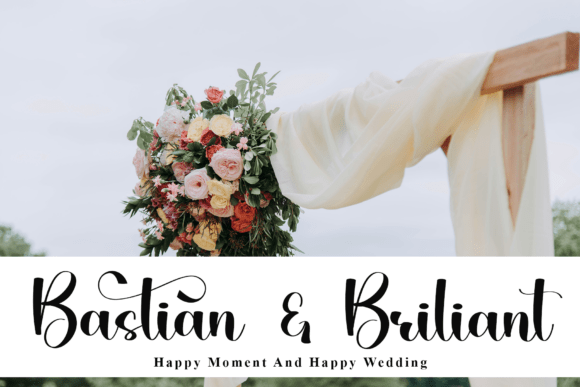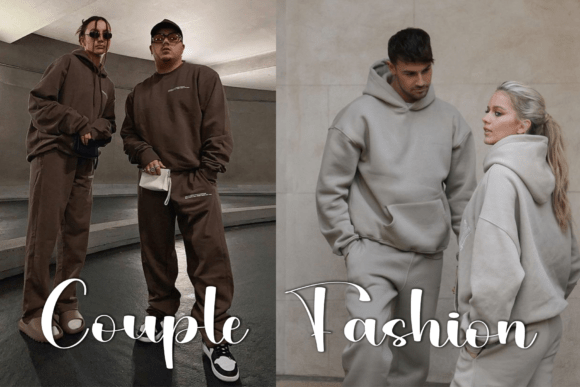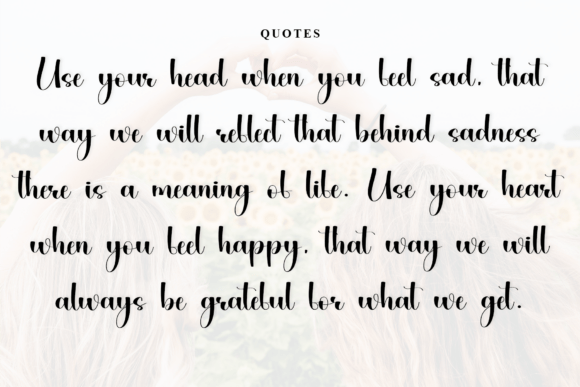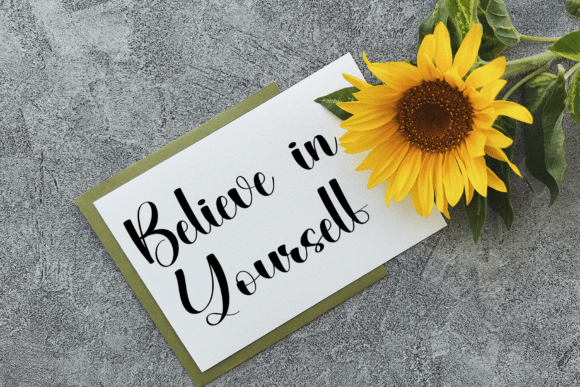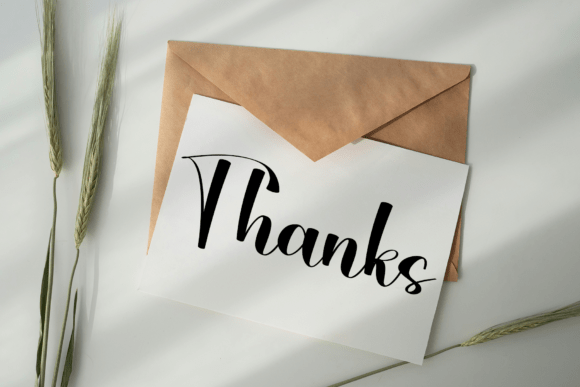
The Perfect Pen Pal for Your Designs: Bestie Font
Have you ever been stuck in a creative rut, scrolling through your favorite design inspiration boards, and suddenly, you stumble upon a font that makes you feel like you’ve found a long-lost friend? That’s exactly what happened to me when I discovered the Bestie Font. Its charming handwritten style instantly captured my attention, and I knew I had to learn more.
Bestie Font is a delightful, laid-back font that’s perfect for designers looking to add a touch of warmth and personality to their projects. Whether you’re working on a branding campaign, crafting invitations, or creating social media graphics, this font is sure to bring a smile to your face and your audience’s faces. Its fluid strokes and organic lines make it an invaluable asset for designers seeking to create authentic and engaging designs.
Bestie Font Key Features
- Unique Characteristics: The font features a playful, cursive script with rounded edges, making it ideal for creating friendly and approachable designs.
- Kerning and Ligatures: The font includes advanced kerning and ligature pairs to ensure smooth text rendering and professional typography.
Designer Review: Bestie Font
First impressions are everything, and Bestie Font certainly delivers ✨. The moment I laid eyes on it, I knew I had to dive in and explore its features. The font is playful, yet sophisticated, making it perfect for a wide range of applications – from social media to branding.
The Bestie Font family is quite extensive, with a total of 12 weights to choose from ✨. This allows designers to experiment with different styles and create unique, eye-catching typography. I also appreciate the attention to detail in the font’s design, with subtle nuances that add depth and character.
- ⚠️ Limited language support: Although the font is highly legible, it’s only optimized for the Latin alphabet, which may limit its use in multilingual projects.
- ⚠️ Not ideal for small text: The Bestie Font’s beauty lies in its bold, statement-making qualities. However, it may not be the best choice for small text or body copy, where readability is crucial.
Overall, I’m impressed with the Bestie Font’s versatility and visual appeal ✨. While it may have some limitations, I believe it’s a valuable addition to any designer’s toolkit. With a little creativity, this font can help take your designs to the next level.
Getting the Most Out of Bestie Font
Bestie Font is ideal for creative projects, such as social media posts, flyers, and posters. It’s also great for adding a personal touch to your presentations and documents. To get the most out of Bestie Font, experiment with different font sizes, colors, and styles to create a unique look.
Bestie Font is commonly used for:
– Social media posts and captions
– Flyers and posters
– Presentations and documents
– Blog titles and headings
Alternatives to Bestie Font for Designers
Lato is a clean and modern sans-serif font that is suitable for various design applications, including logos, headings, and body text. It is highly legible and comes in 7 weights, making it a versatile option for designers.
Compared to Bestie Font, Lato is more geometric and minimalist, while Bestie Font has a more rounded and friendly feel. Lato is ideal for modern and tech-related designs, whereas Bestie Font is better suited for creative and playful projects.